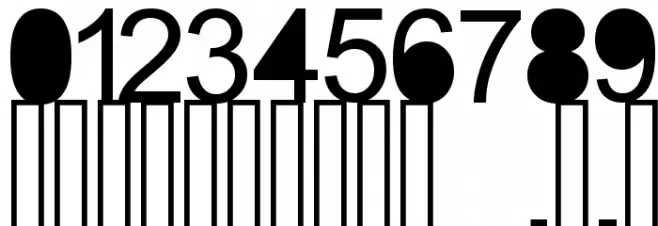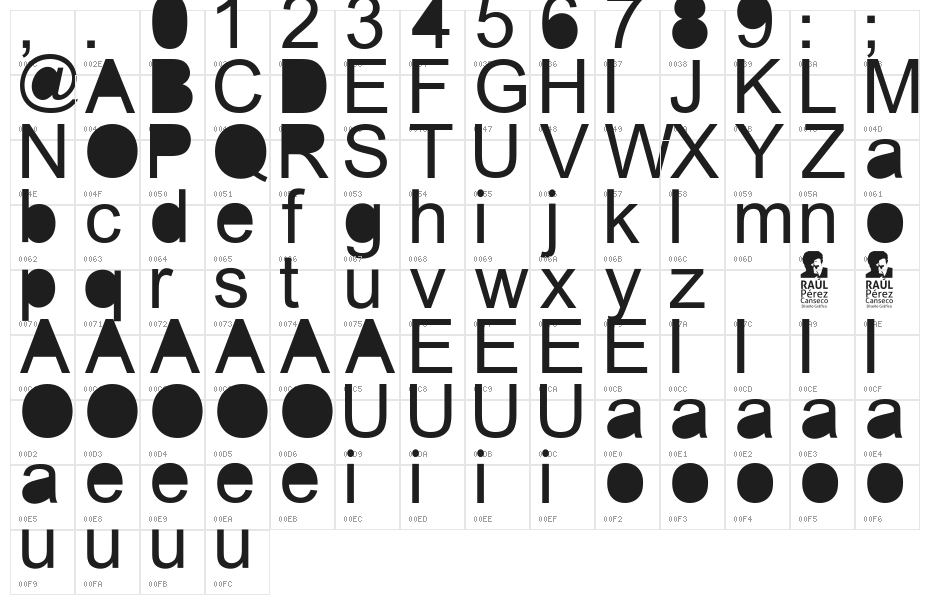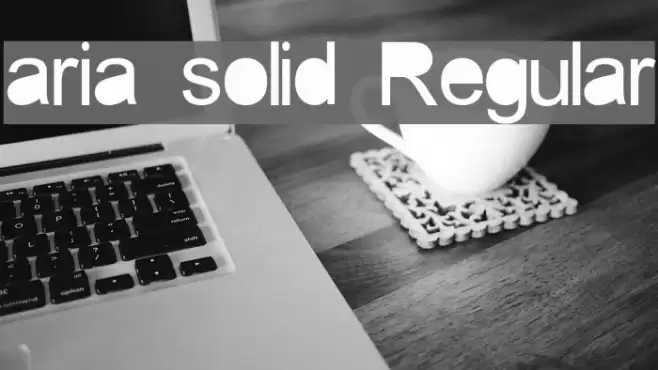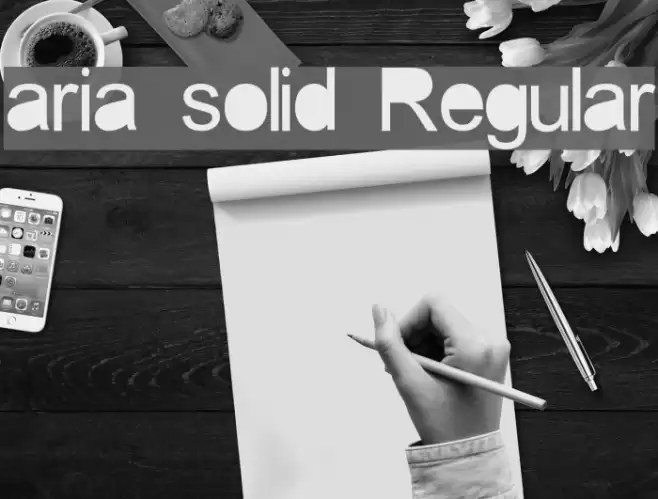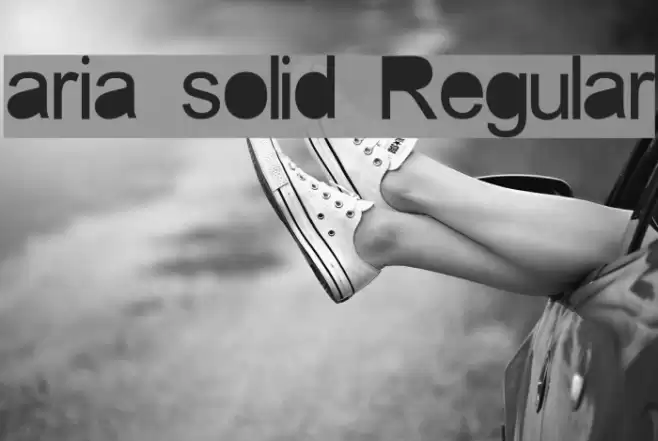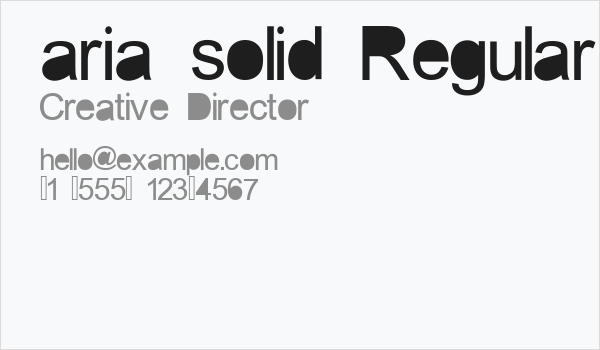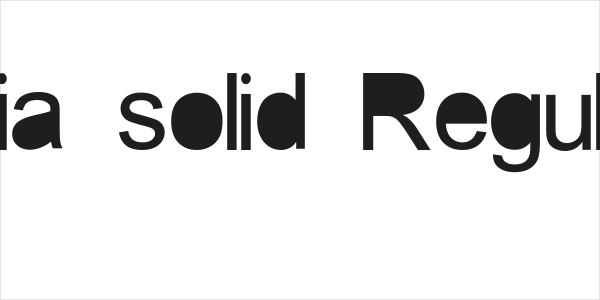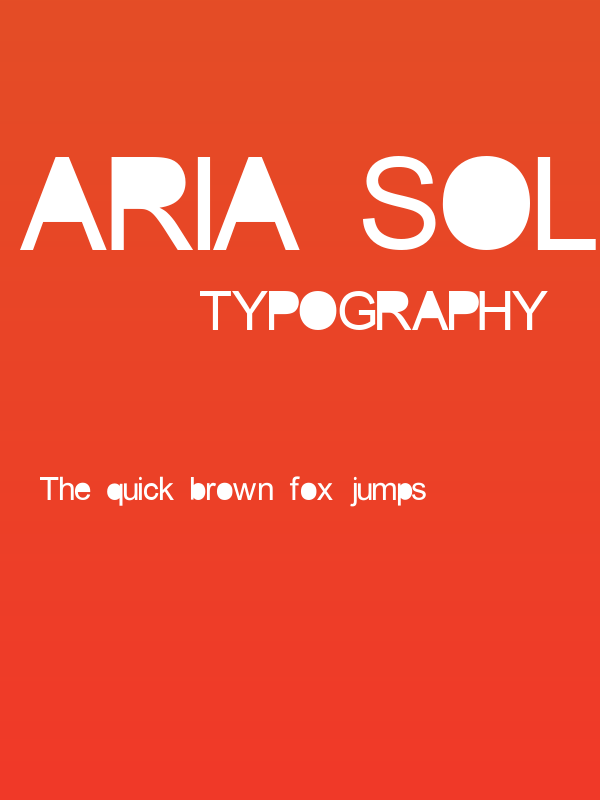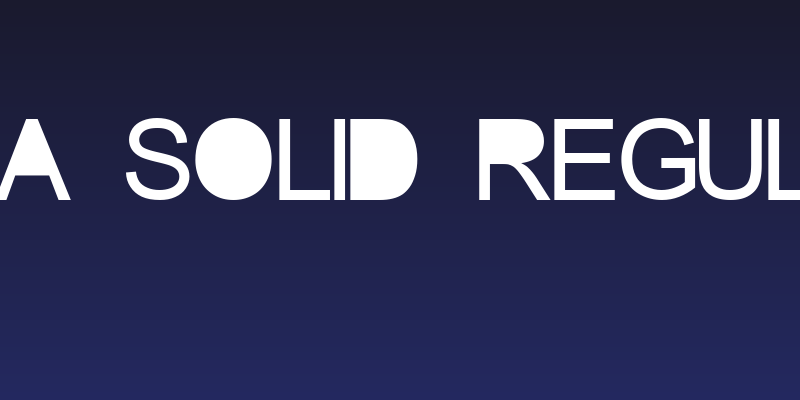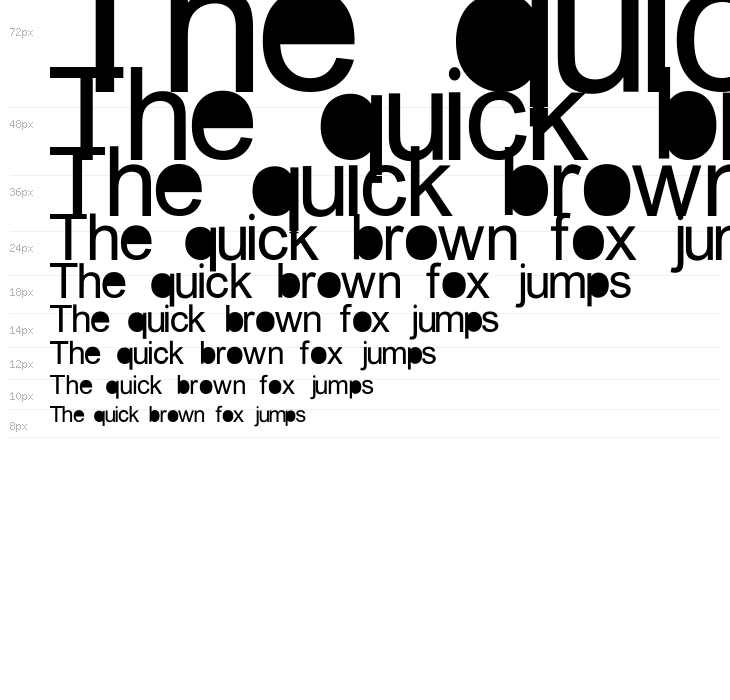
aria solid Regular Font
aria solid Regular Description
This font features a bold and modern sans-serif style with clean lines and a strong presence. The characters are well-defined, with a consistent stroke width that gives it a solid and authoritative look. The uppercase letters are slightly taller than the lowercase, providing a balanced and harmonious appearance. The numerals are distinct and easy to read, making them suitable for various applications. The special characters are designed to match the overall aesthetic, ensuring a cohesive look across all text elements.